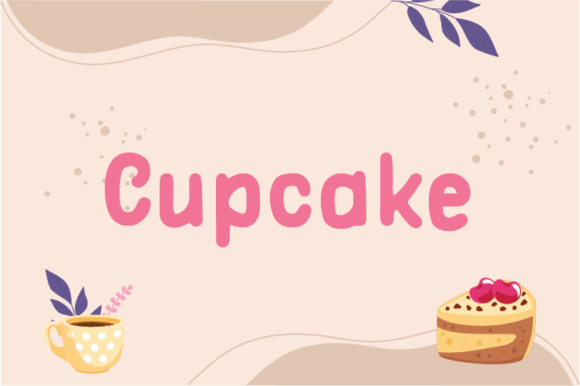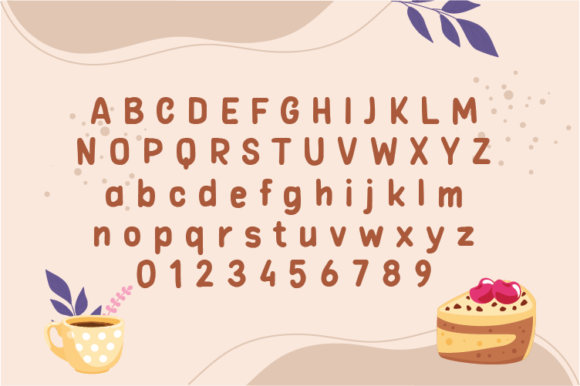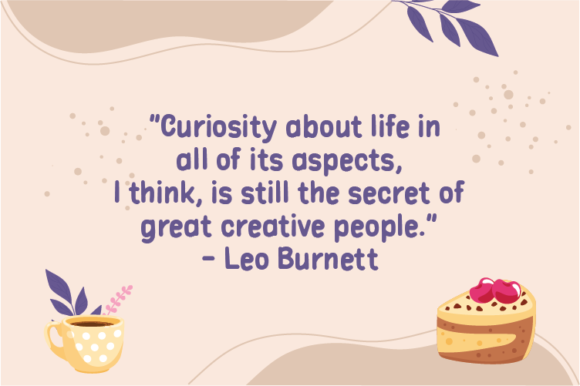
About Cupcake Font
Cupcake is a delightful and natural handwritten font distinguished by the preservation of each character’s original indentation without altering a single node. This unique feature makes the font particularly interesting and adds a charming quality to its appearance. Cupcake is exceptionally well-suited for a variety of applications, making it a perfect choice for quotes, notes, tees, and various product designs.
The font’s natural handwritten style imparts an authentic and organic feel, making it an ideal choice for projects that seek to convey a sense of warmth and sweetness. Whether used in quotes for inspiration, notes to add a personal touch, or on t-shirts and product designs, Cupcake brings an unaltered and unique quality to your text.
In quotes and inspirational messages, Cupcake’s natural handwritten appearance adds a touch of sweetness and authenticity. The font’s unique design ensures that your words are presented in a way that feels personal and genuine, contributing to a heartfelt expression.
For notes and personal messages, Cupcake enhances the sincerity of your communication. Its untouched indentation design gives the font a handcrafted and individualized look, making your messages feel more intimate and genuine.
On t-shirts and product designs, Cupcake’s natural and unique characteristics create a distinctive visual appeal. The font adds an original touch to your designs, making them stand out with a charming and unaltered charm.
The versatility of Cupcake extends to various design applications where a natural and handwritten style is desired. Its uniqueness ensures that your text becomes a focal point, adding an interesting and engaging element to your overall design.
In summary, Cupcake is not just a font; it’s a creative tool that brings a natural and unique handwritten style to your projects. Whether used in quotes, notes, tees, or product designs, Cupcake adds an authentic touch, making your creations stand out with a genuine and charming charm.